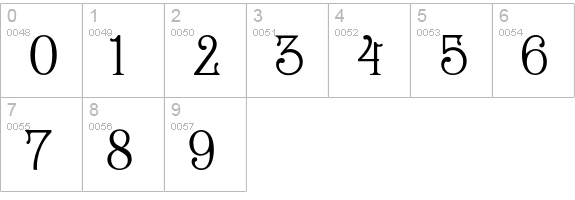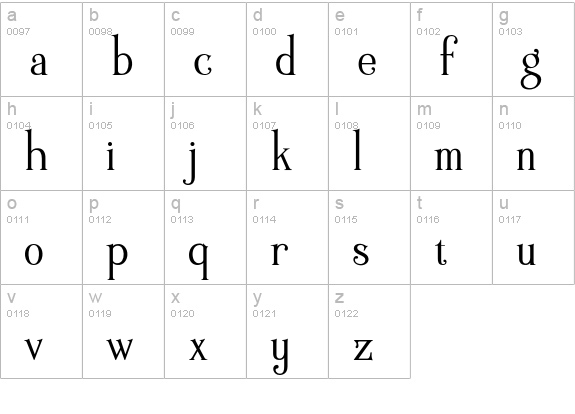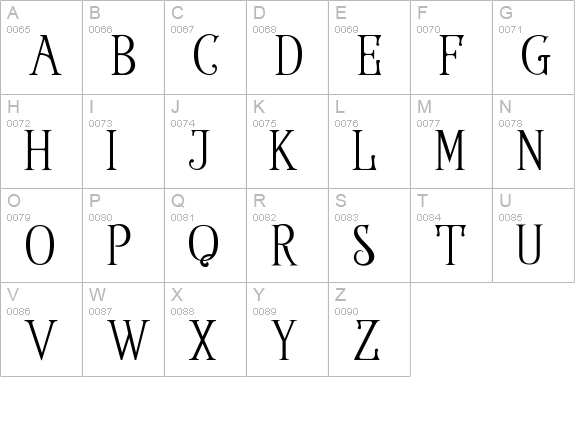
Wallington Font Details
Introducing Wallington font - a versatile and elegant typeface perfect for adding a touch of sophistication to your design projects. With its classic yet modern appeal, Wallington font is a timeless choice for various applications including branding, packaging, invitations, and more. What sets Wallington font apart is its exquisite details and graceful curves that exude a sense of luxury and refinement. Whether you're crafting a wedding invitation or designing a high-end logo, Wallington font is sure to impress with its unique blend of traditional charm and contemporary flair. And the best part? Wallington font is available for free download at FontsMarket.com. So go ahead and elevate your designs with this beautiful typeface without breaking the bank. Download Wallington font today and bring a touch of elegance to your creative projects!